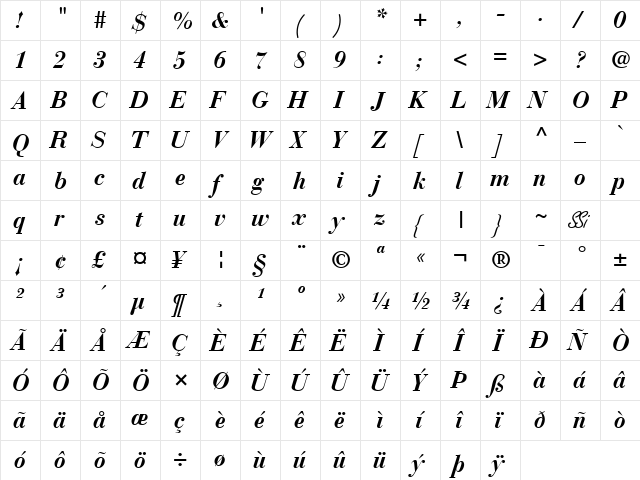
Bodoni Recut SSi Bold Italic
Design Context for Bodoni Recut SSi Typeface
Bodoni Recut SSi takes a measured approach to typography — its balanced proportions and neutral character make it a reliable workhorse for both digital and print work. The dynamic lean of this cut emphasises speed and emphasis in any layout. Its bold stroke weight gives it real presence on the page.
Pro Tip: Use Bodoni Recut SSi for emphasis, pull quotes, and subheadings where its slanted energy can add rhythm to the layout.